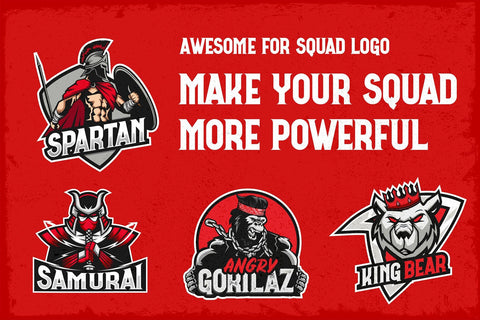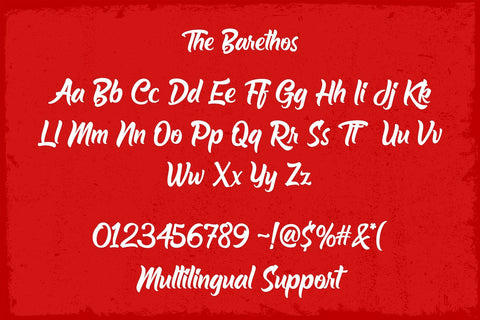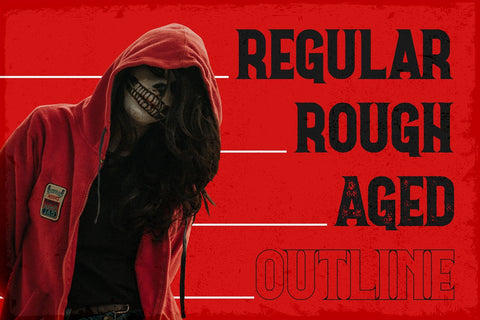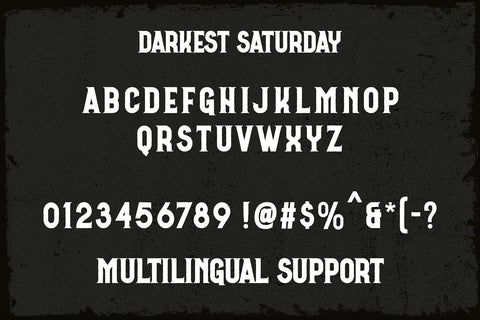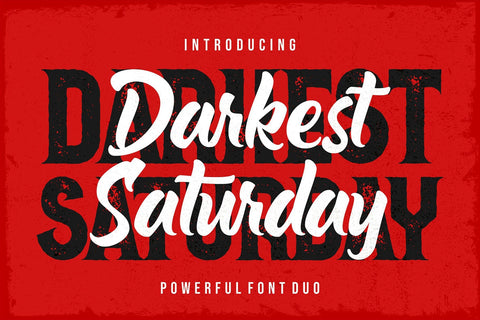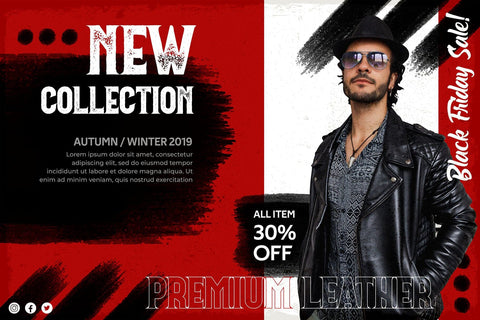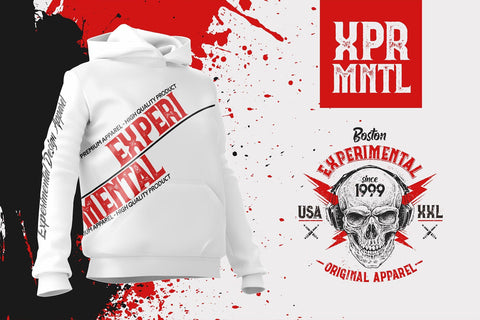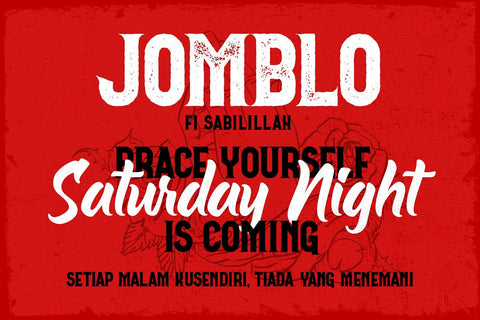
Darkest Saturday - Powerful Font Duo
Proudly present our new product "Darkest Saturday Duo ". This font is inspired by a blend of vintage style with a touch of rough. Darkest Saturday shows a dark night for those who are lonely. Comes with four variations of style making it very suitable to be combined to produce impressive work.